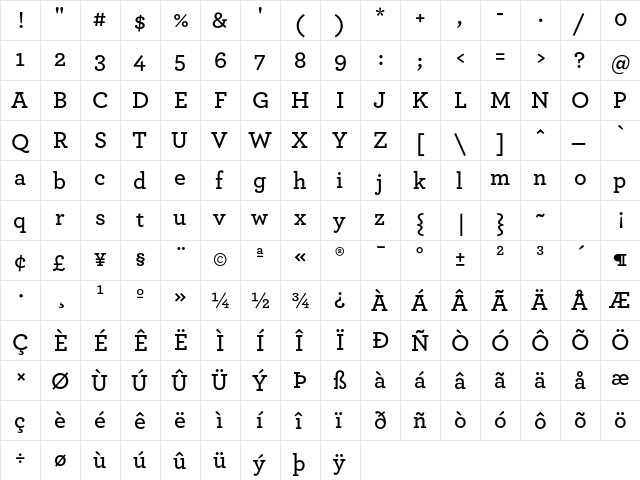
Archer Semibold
| Foundry | Hoefler & Frere-Jones |
| Designer | Hoefler & Frere-Jones |
Design Context for Archer Typeface
Archer offers clean, dependable letterforms without strong stylistic allegiance, making it a practical choice for designers who need flexibility. The heavy weight commands attention and anchors typographic hierarchies.
Pro Tip: Pair Archer with a font of contrasting weight or personality to build a more expressive typographic hierarchy.